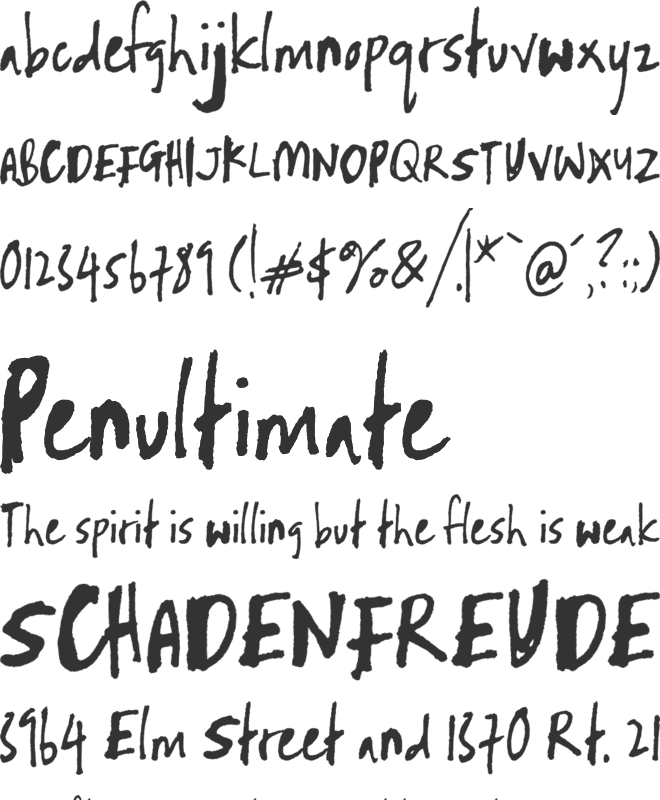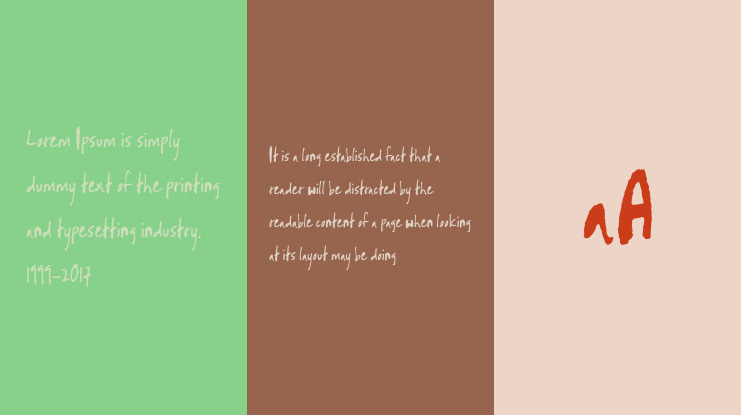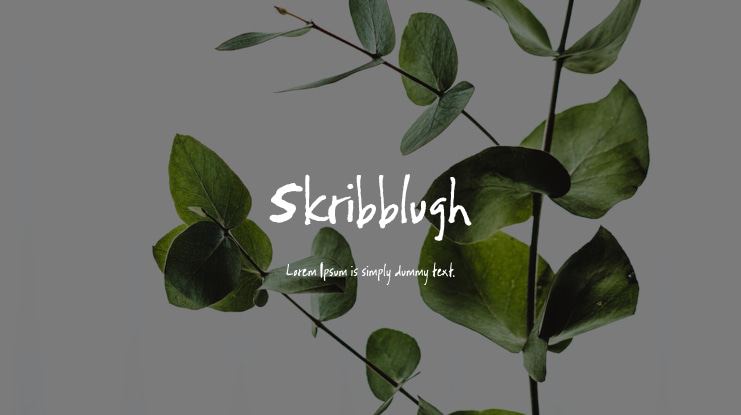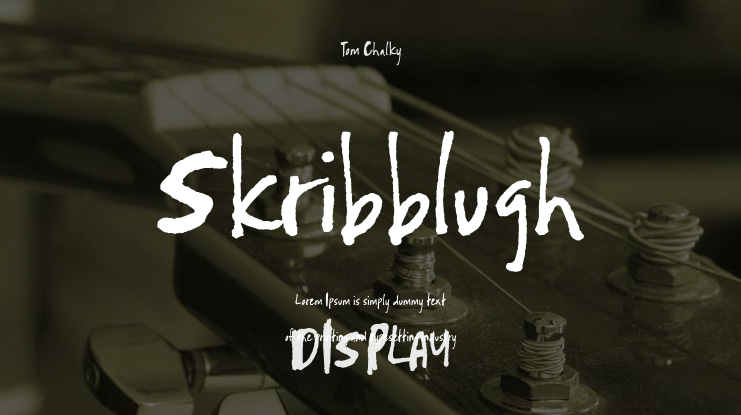
Skribblugh Font
Full font family description: This wobbly, aesthetically pleasing, and distinctly handwritten typeface is full of character and versatility. Within a clean, modern context, it adds a personal touch, a final note, a signature. In a playful, colorful setting, it helps to exaggerate the atmosphere, bringing playfulness and warmth center stage. With four variations for each uppercase and lowercase letter, there are ample opportunities to make designs look personal and relatable.